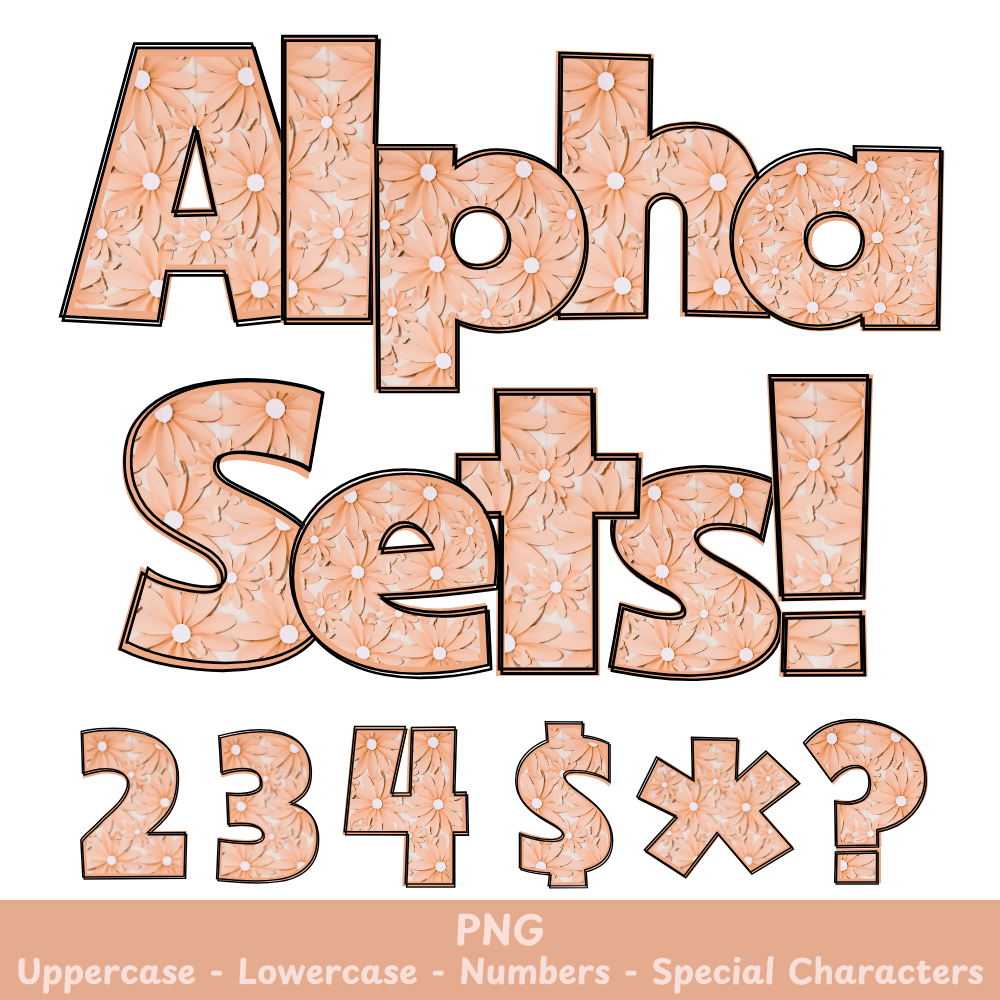
Peach Flowers PNG Font
Peach Flowers Alpha Set PNG Font Pack
This Peach Flowers PNG Font is perfect for adding a touch of charm to your crafts and sublimation projects. With its delicate peach flower design, it will bring a unique and elegant touch to any project. Use it to add beautiful floral accents to your designs and make them stand out in a professional and polished way.